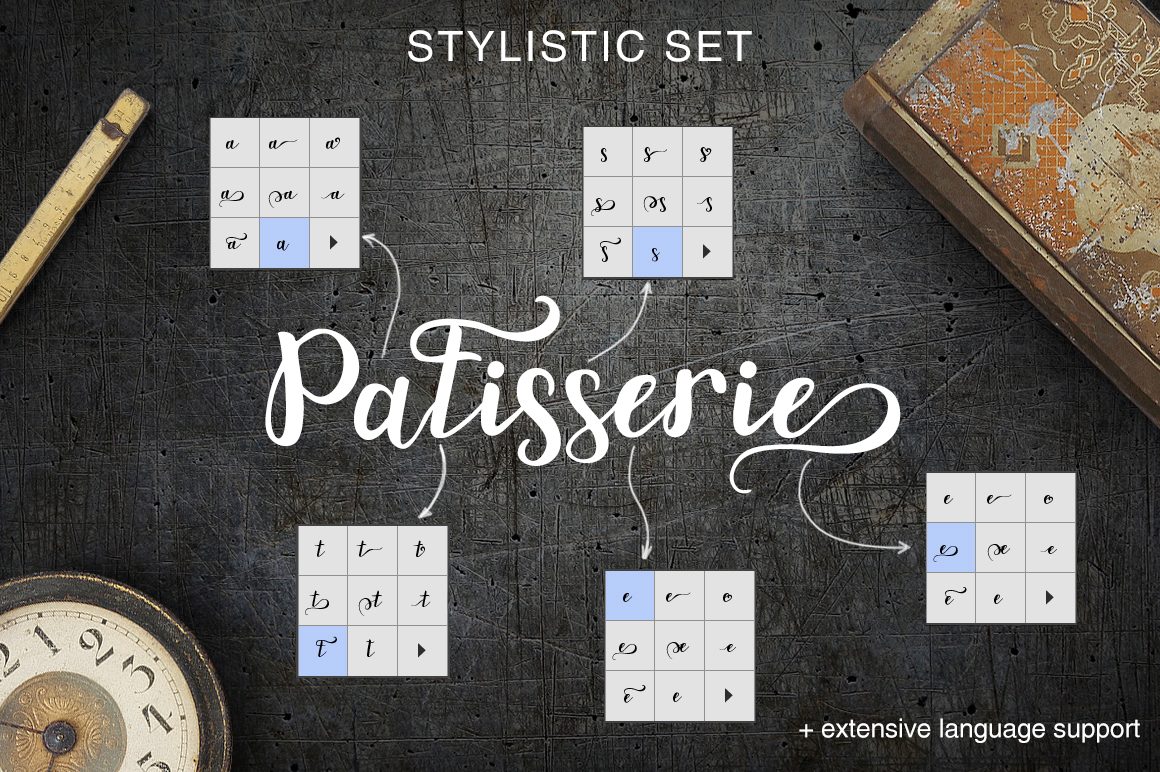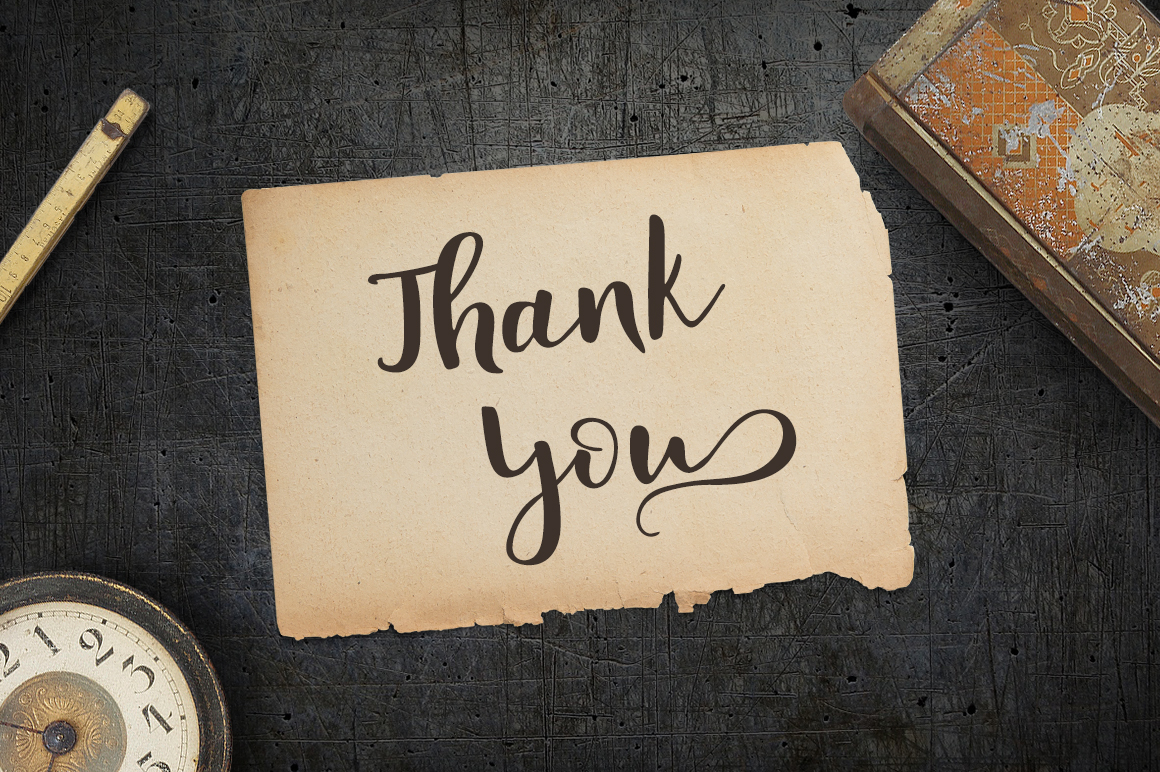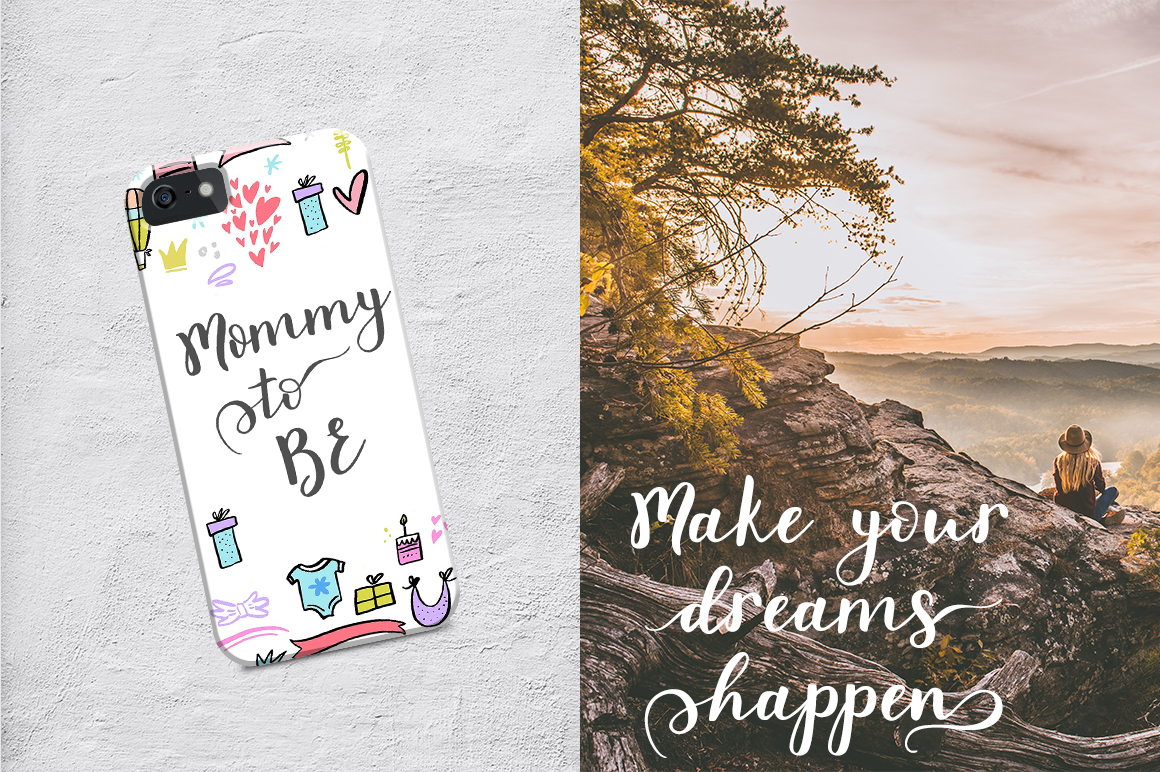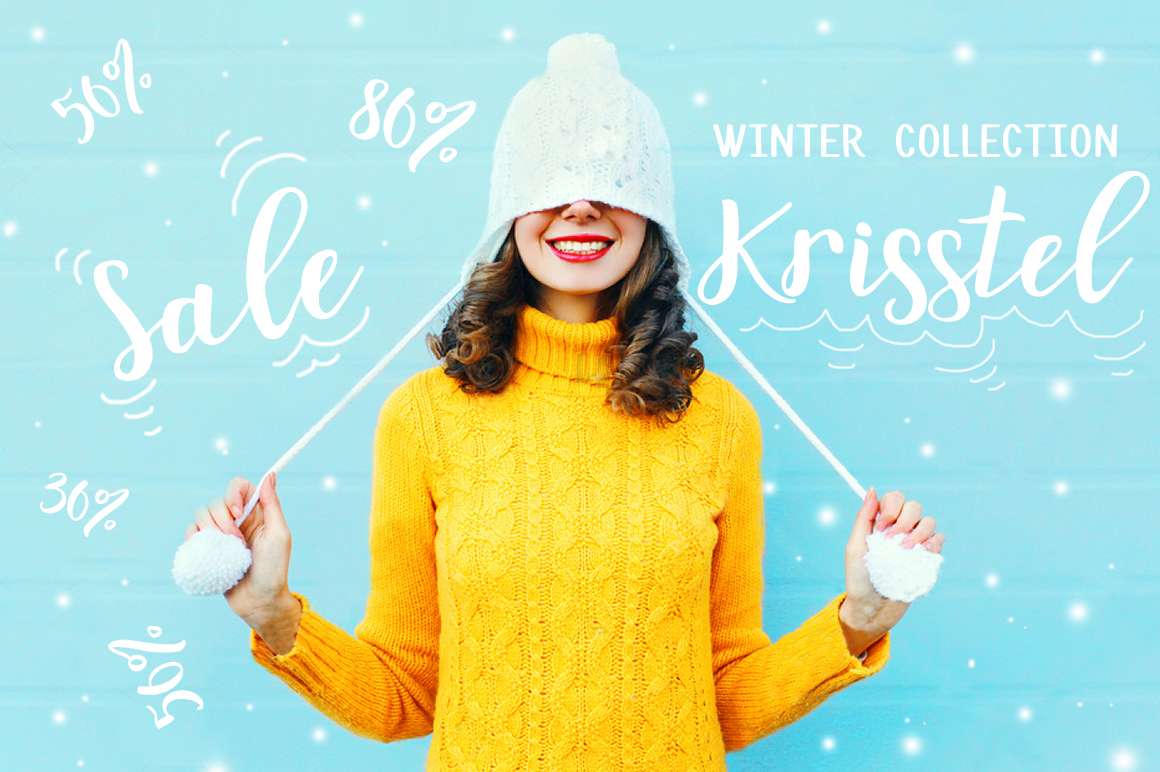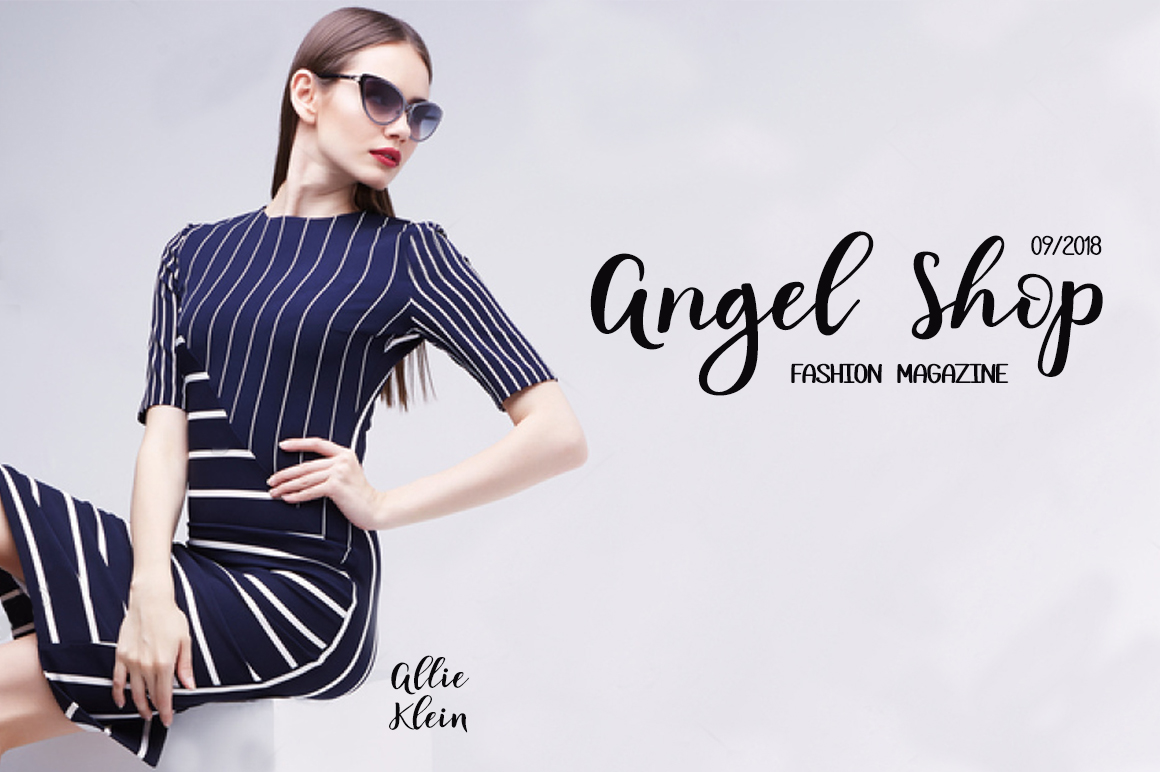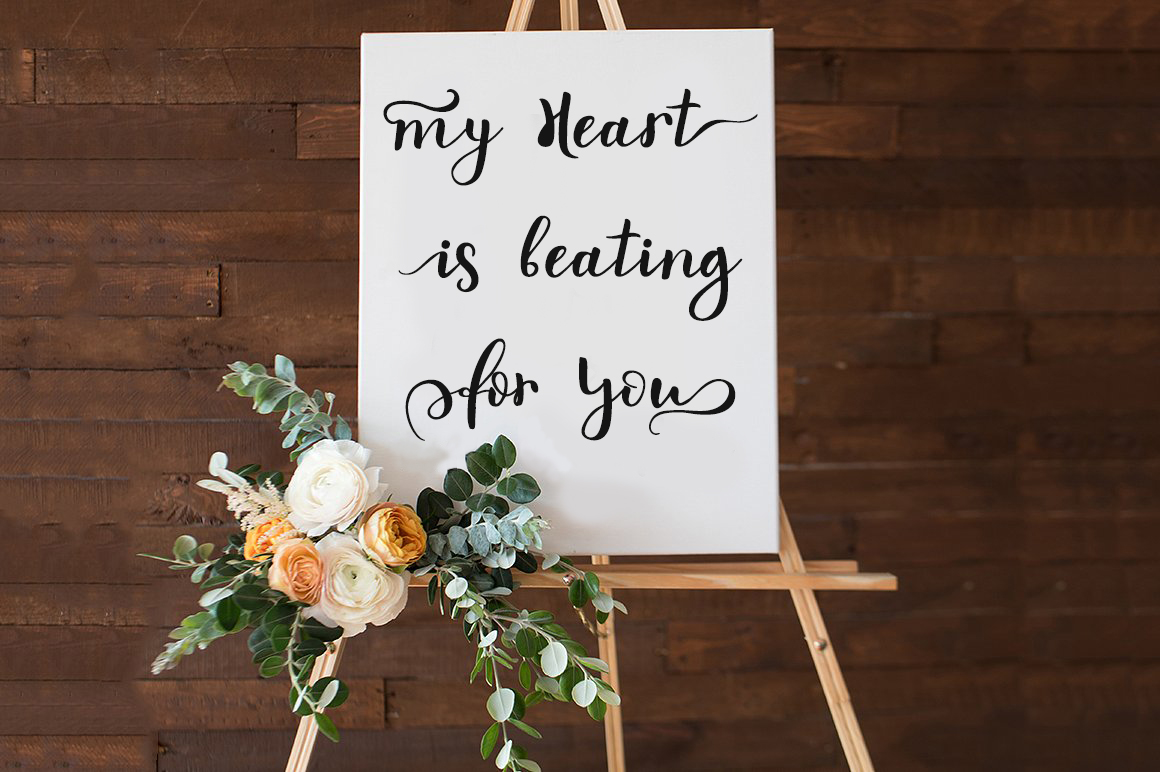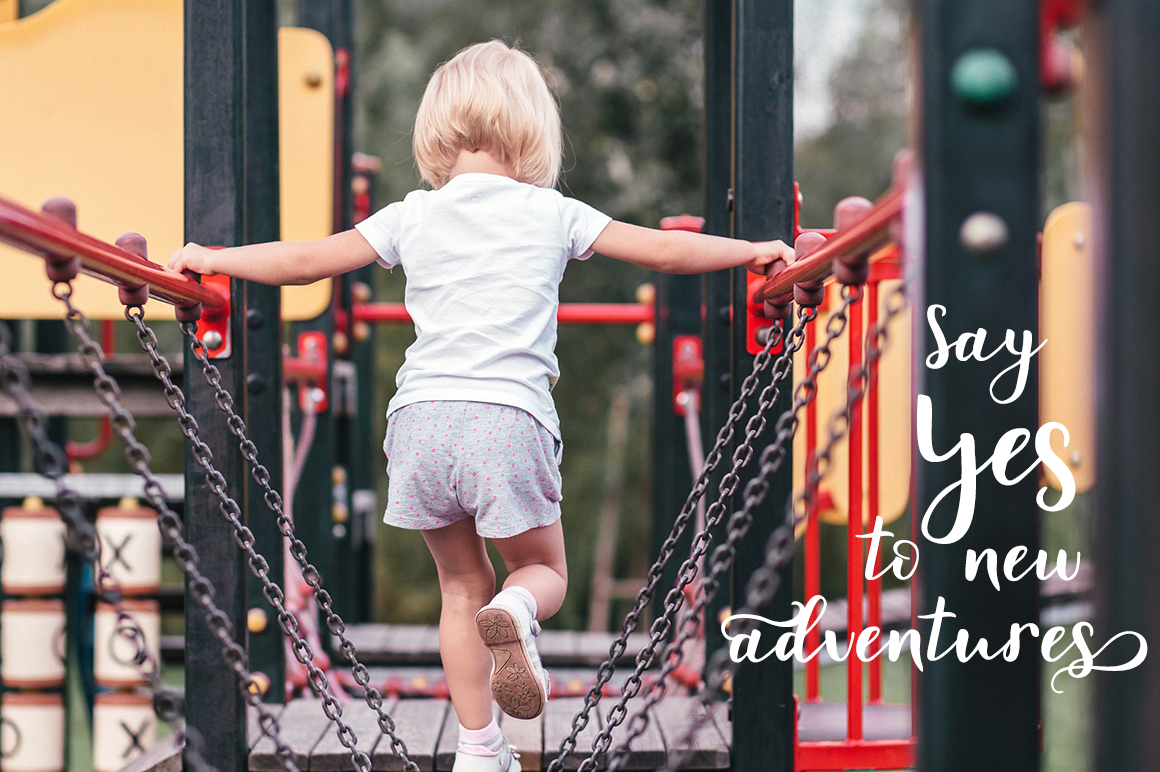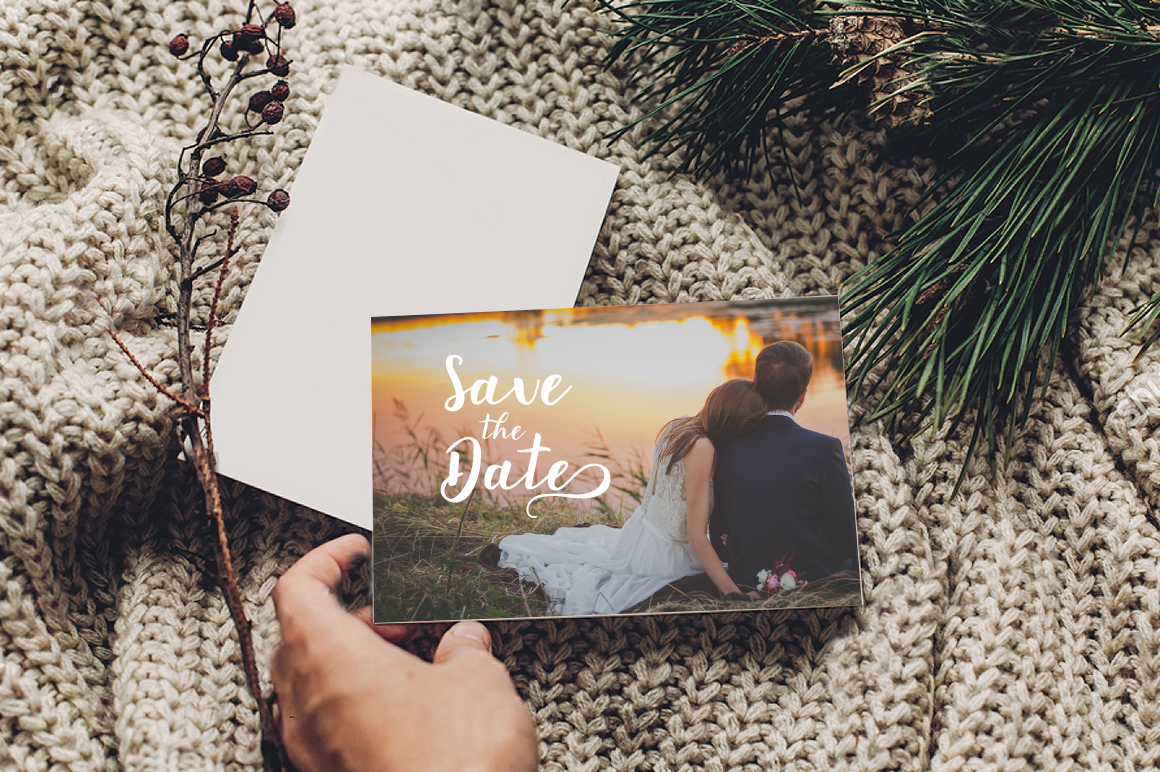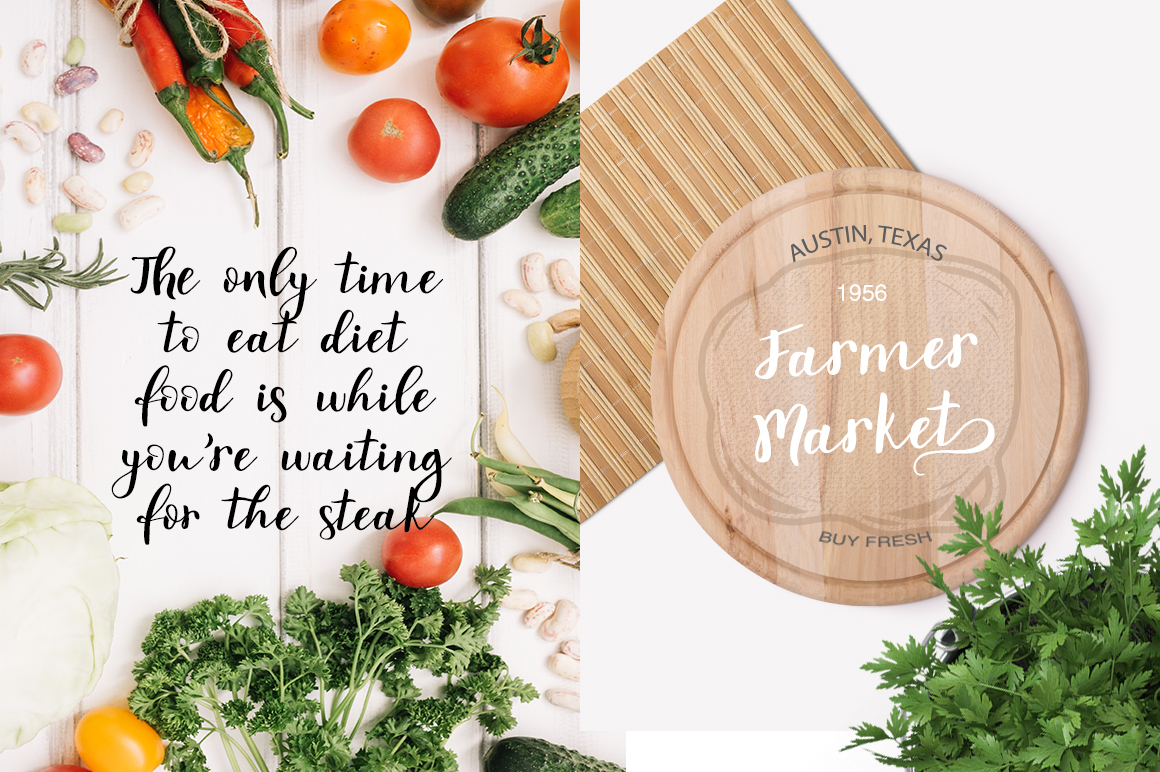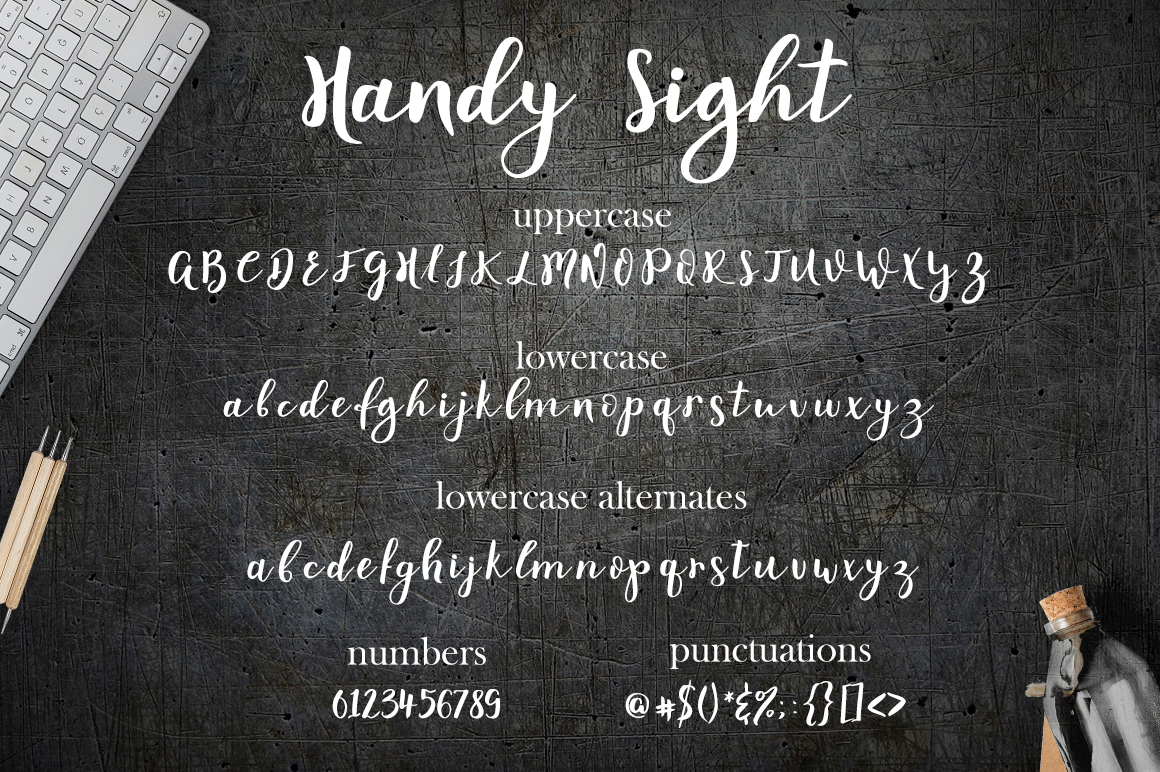
Handy Sight Font
About Handy Sight Font
Handy Sight is a beautiful script font that was crafted via brush for a modern yet stylish and comfortable look. Use as a headline to your designs for a truly remarkable style.